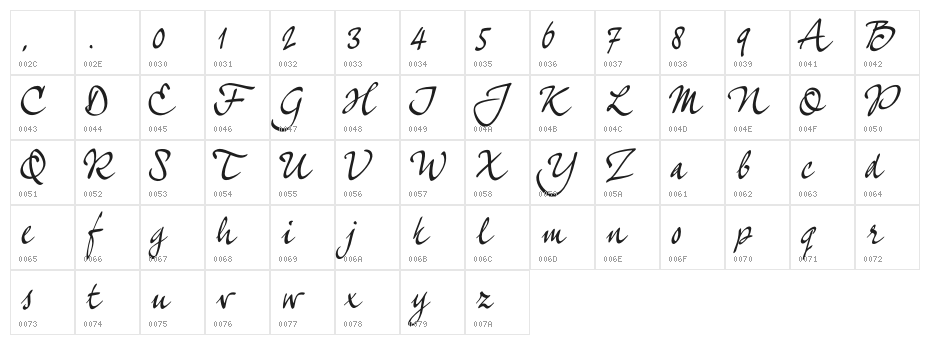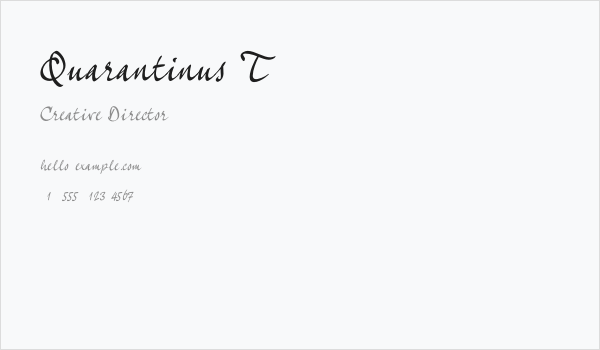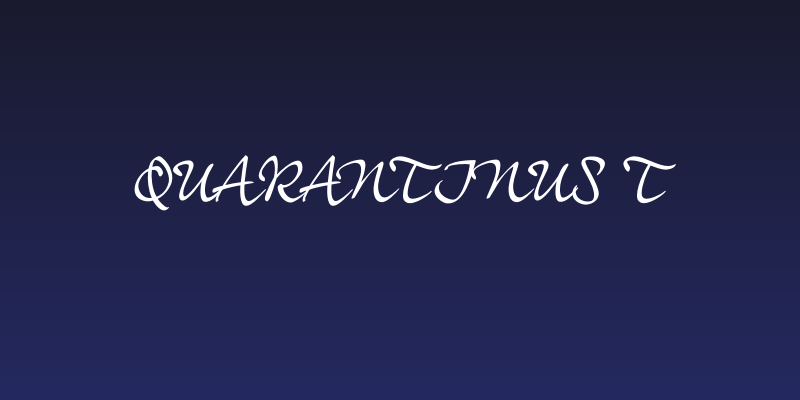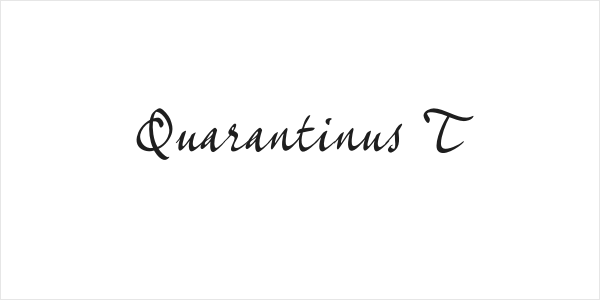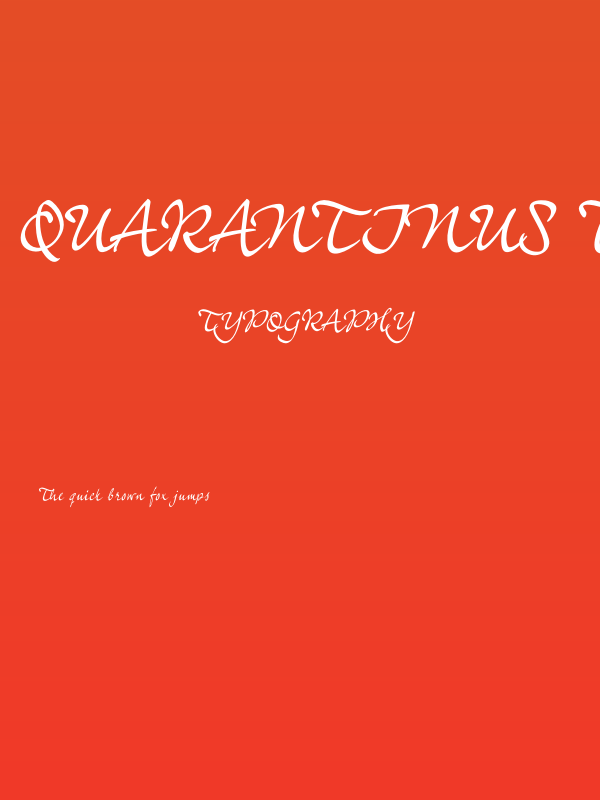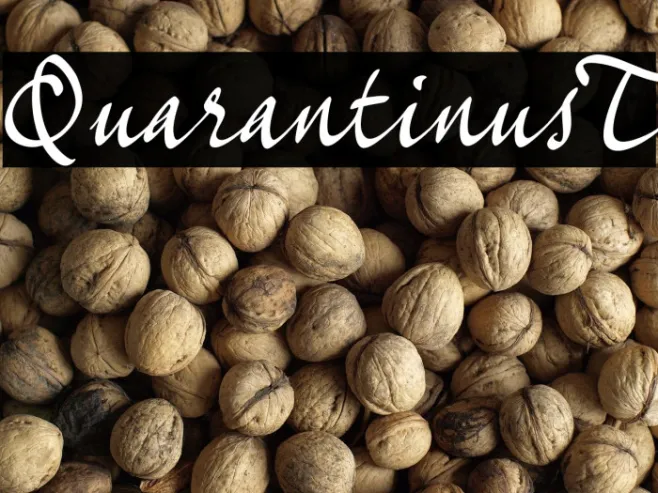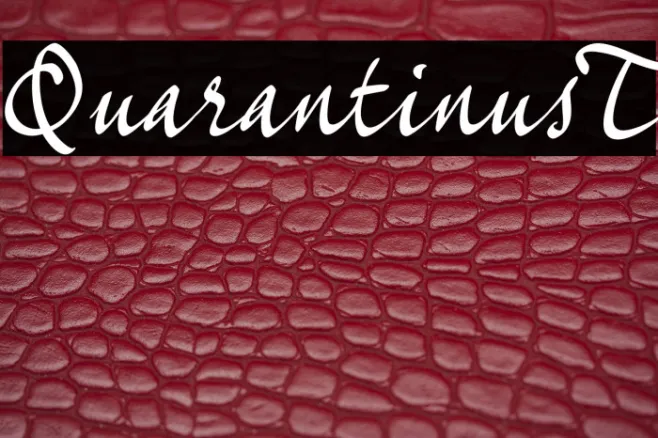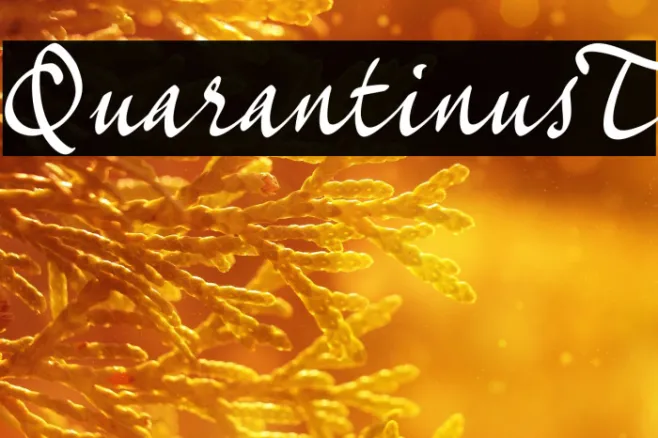
Quarantinus_T Font
Quarantinus_T Description
This font exudes a classic and elegant script style, characterized by its flowing, cursive letterforms. The uppercase letters are gracefully connected, while the lowercase letters maintain a consistent fluidity, enhancing readability. The numerals are distinct, with a slight slant that complements the overall script aesthetic. Special characters are seamlessly integrated, maintaining the font's cohesive look. The strokes vary in thickness, providing a medium contrast that adds to the font's sophisticated appearance. This font is ideal for projects that require a touch of elegance and formality.
| Use Case | Headlines, Invitations, Branding |
| Proposed Projects | Wedding invitations, elegant branding, formal event programs, and upscale packaging. |